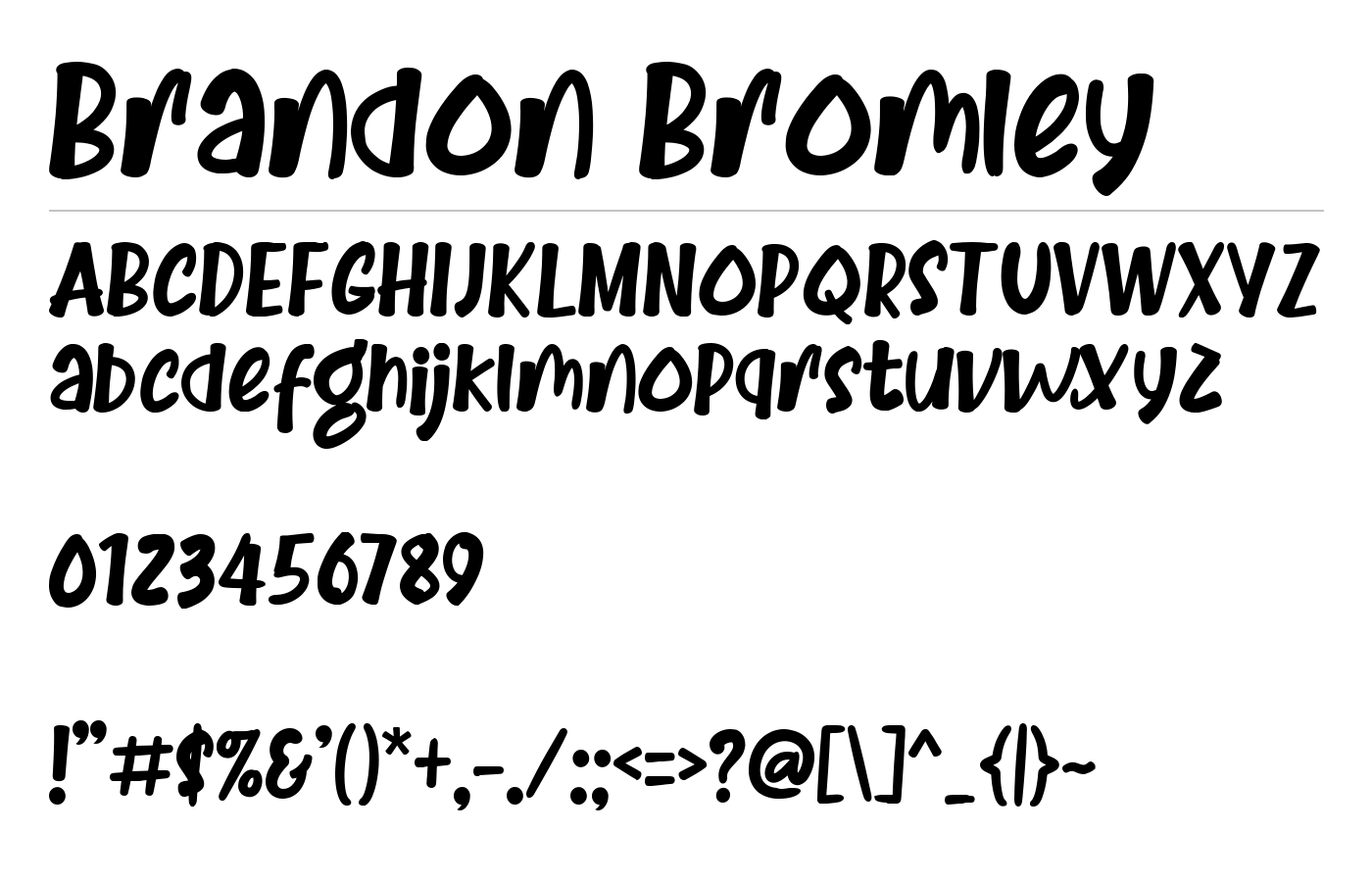
Brandon Bromley is a playful, hand-drawn sans serif font with a casual and friendly vibe. Its slightly irregular, bold strokes and rounded letterforms give it an approachable personality, making it ideal for creative projects, informal branding, and whimsical headlines. This font works well where a fun, personal touch is needed, such as children’s books, posters, and lifestyle packaging.
Brandon Bromley Font
About Brandon Bromley Font
| Font family | Brandon Bromley Font |
| Designer | Toni Dzulham |